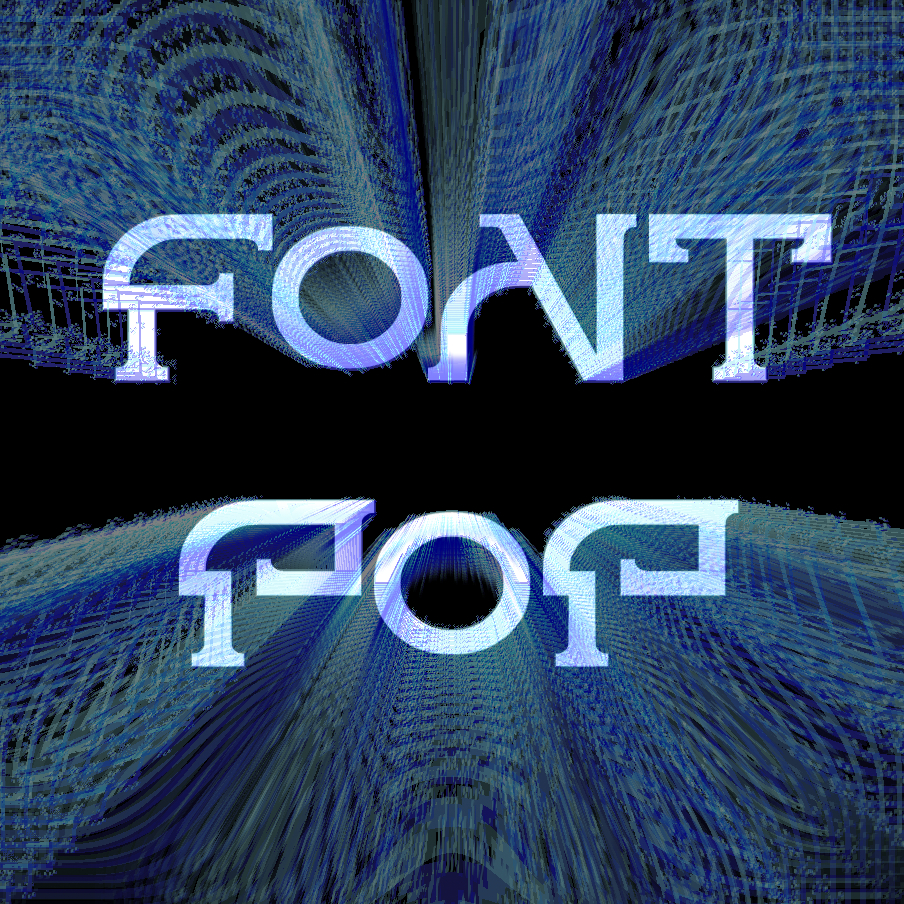
This is a tribute reworking of an experimental design of Rod Cavazos of PsyOps Type foundry. His Spanner font design from 1995 has always been a favorite of mine with its unexpected curves and serifs, making it similar to a Picasso portrait with letters. This fonstructivized version was a test to see if it would be possible to make an accurate reproduction. The answer was 'sort of.'
Very very close to Spanner in a lot of glyphs. Good luck with them.